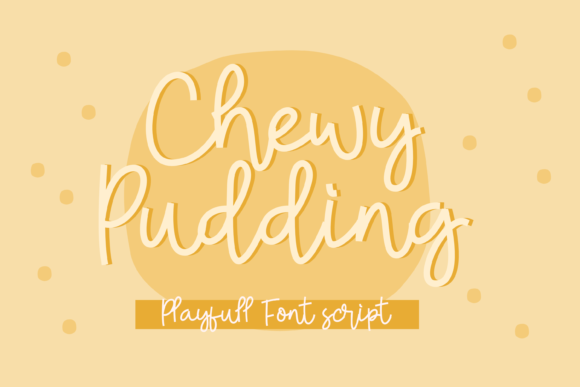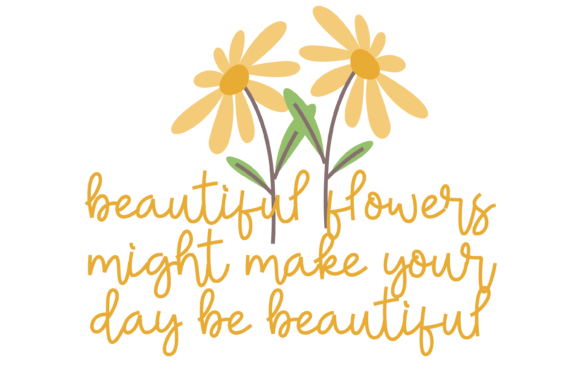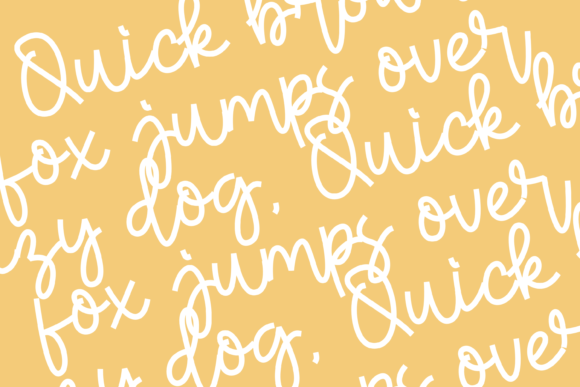
About Chewy Pudding Font
Chewy Pudding is a playful and sweet handwritten font. Warm, romantic and jolly, this font will turn each of your project ideas into real works of art. Have fun with this beautiful font and explore its endless variations.